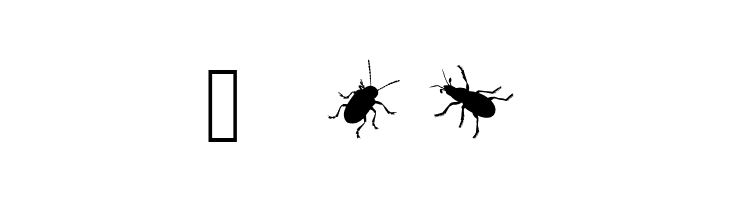
puppetFace Font
A whimsical, hand-drawn style font with playful, irregular strokes.
The Beetles Font
A decorative font composed of beetle silhouettes as characters.